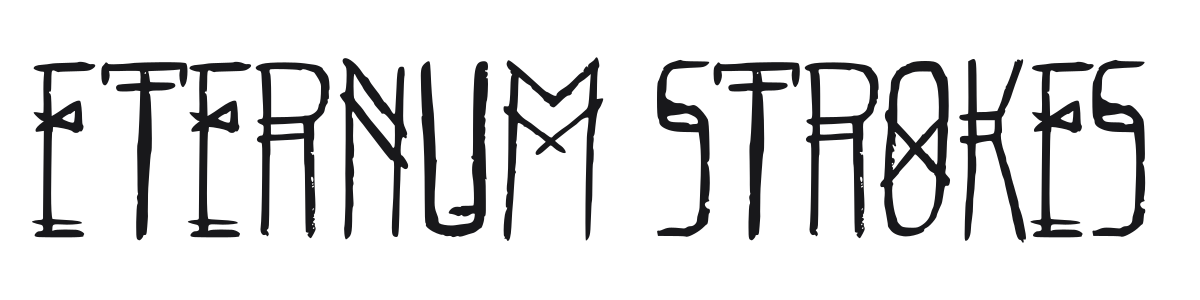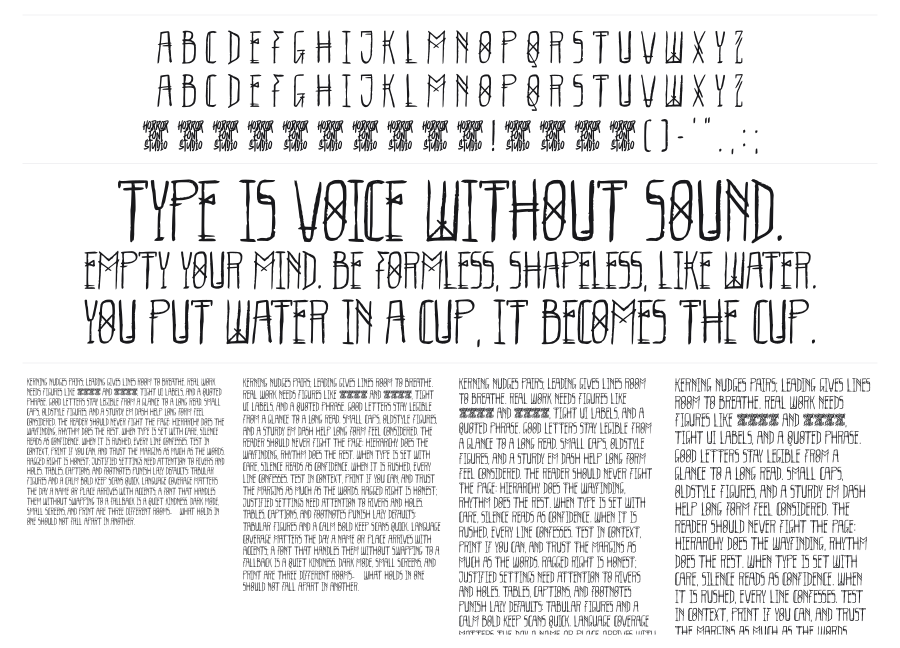
Eternum Strokes
Eternum Strokes is a condensed horror display font built from tall, narrow characters that look hand-scratched and runic. Irregular crossbars and rough stroke textures give it the feel of glyphs carved into stone or scrawled in haste. It carries a strong occult and survival-horror energy without tipping into parody.